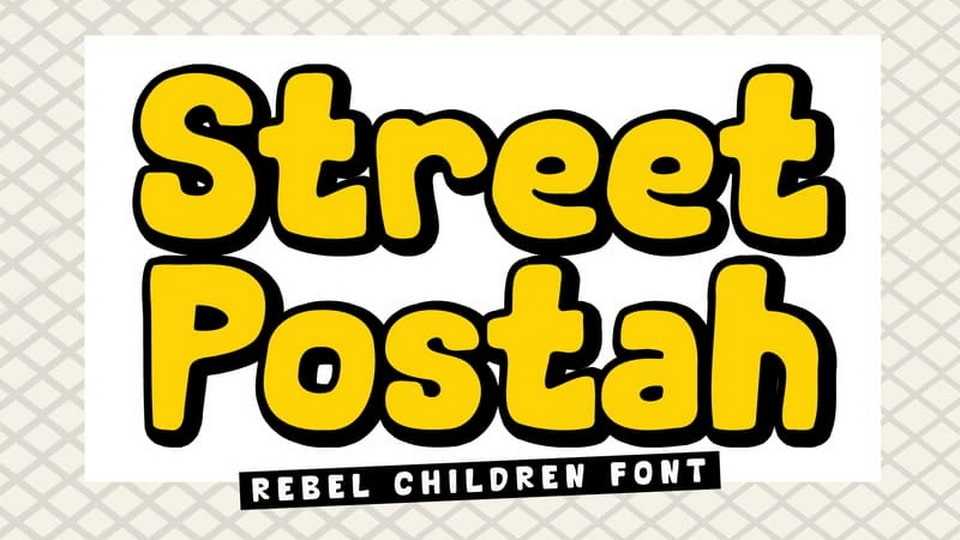
Download Street Postah font, a fun kids typeface, cute but rebellious. Street Postah is not your regular kid’s font. Suit perfectly for rebel children’s books market, online games, stationery, school supplies and more.